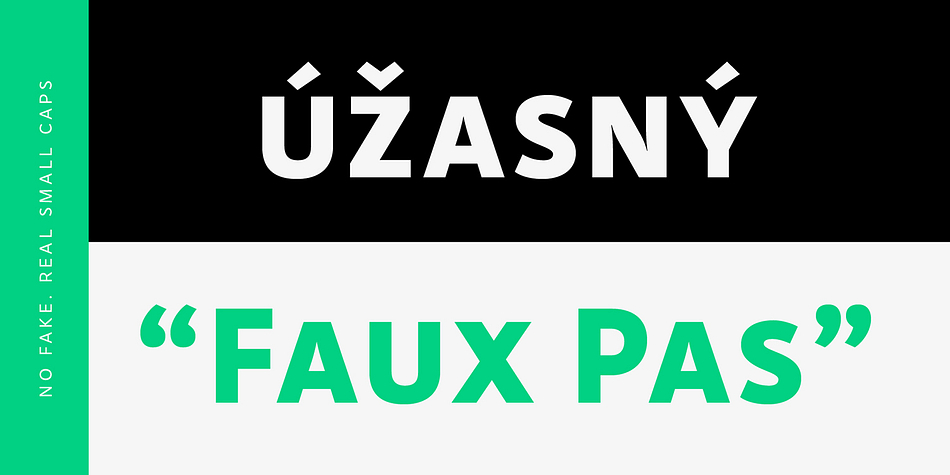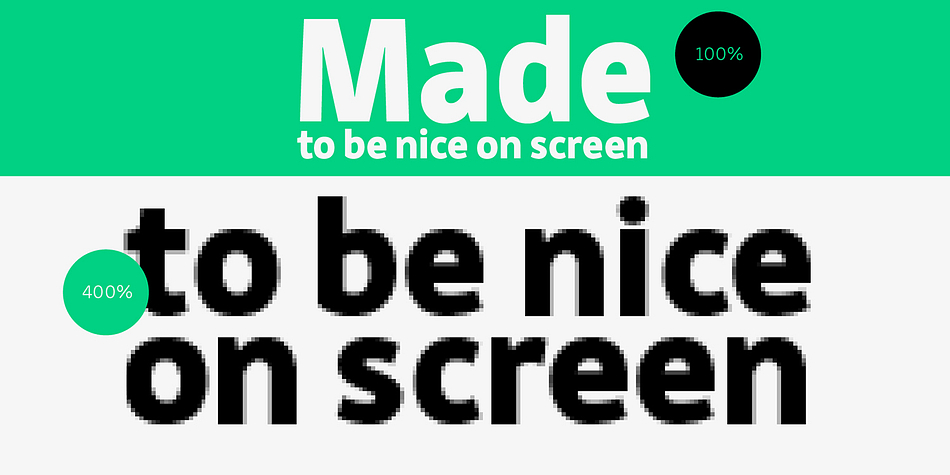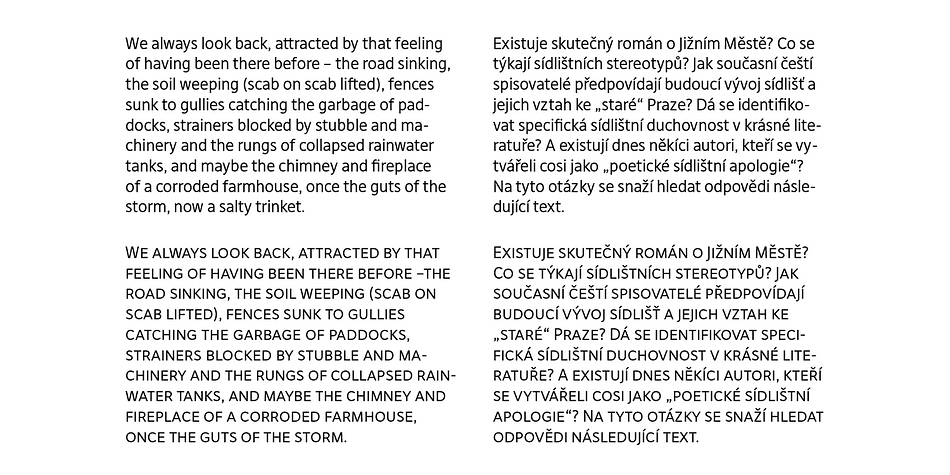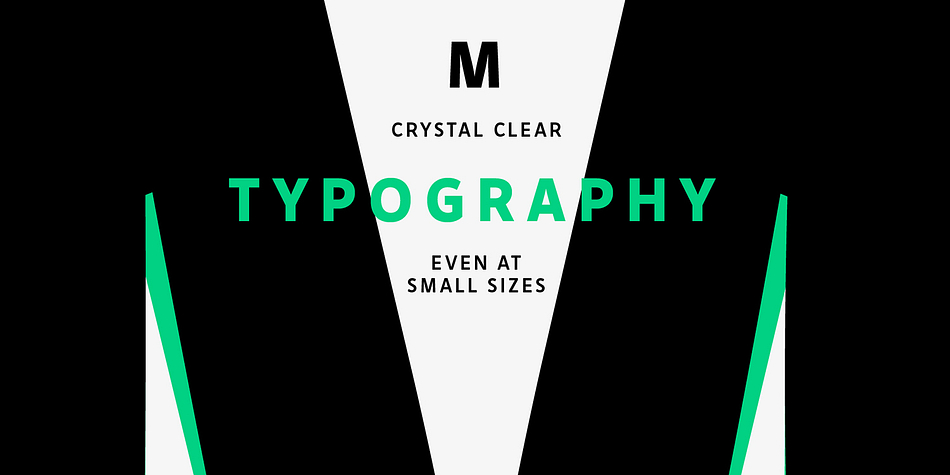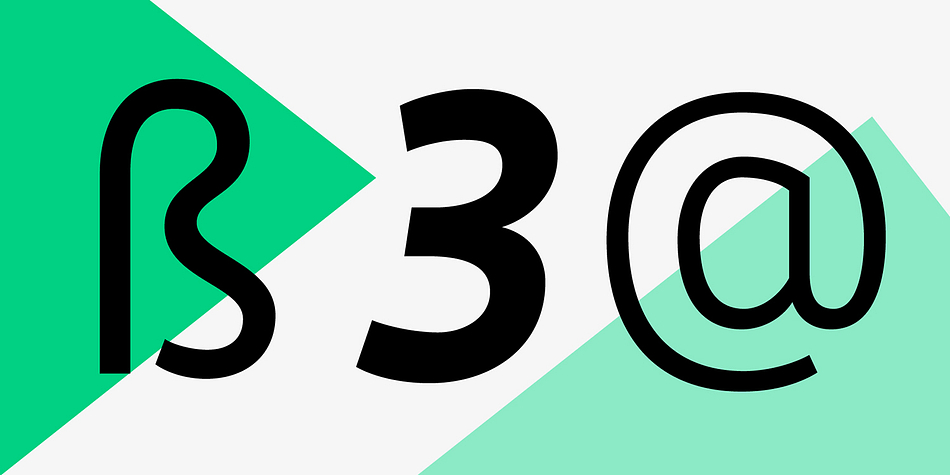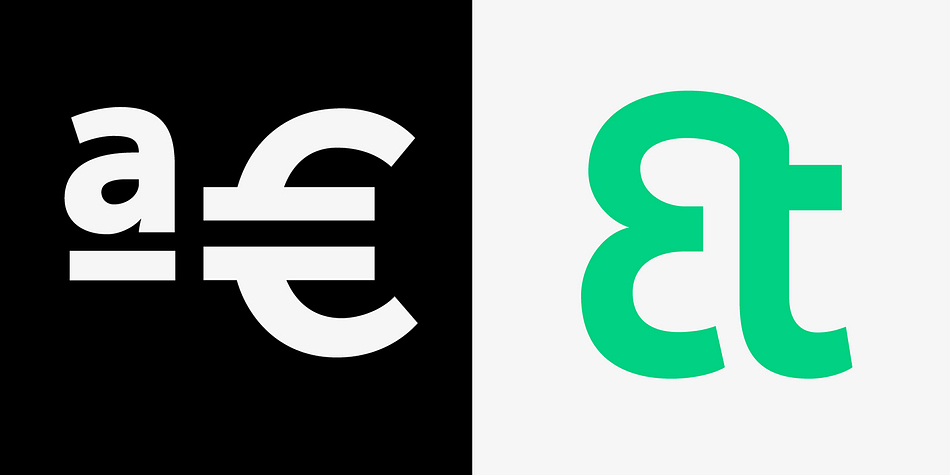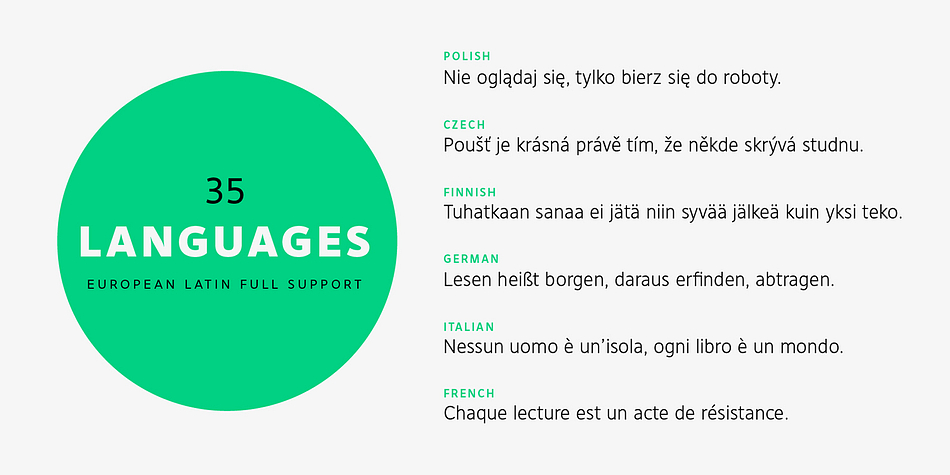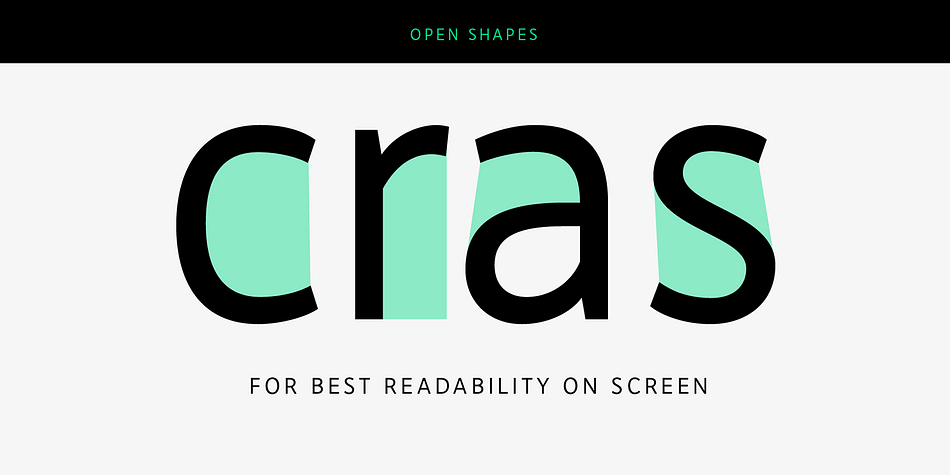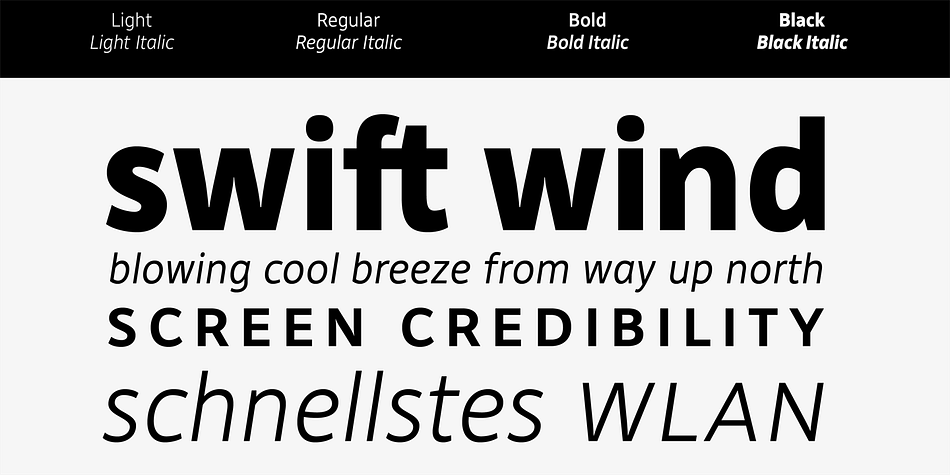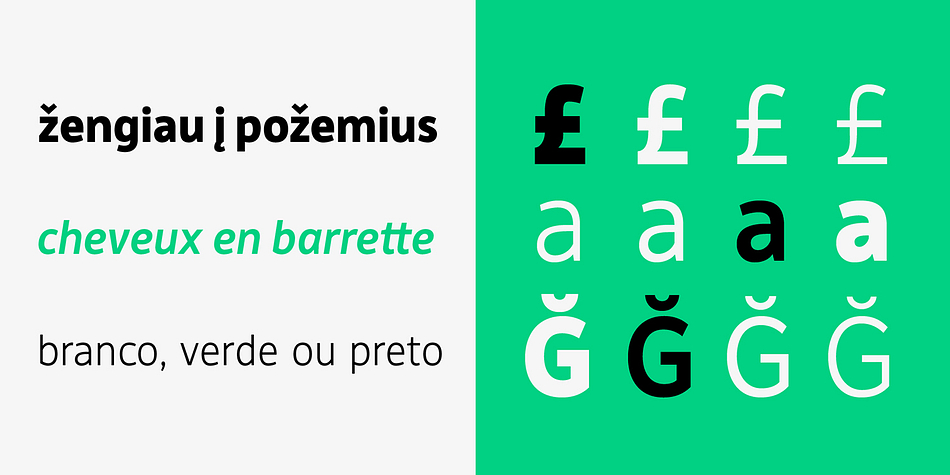
Designed by Elena Albertoni, Senza is a sans serif font family. This typeface has eight styles and was published by Blackmoon Foundry.
Senza is a contemporary, neutral, all-purpose sans serif family designed by Elena Albertoni. It was specially designed for the use on screen. With open shapes and large x-heights Senza guarantees high legibility for body text in small sizes. Senza ’s character-set covers all European languages written in Latin alphabet including real small caps, ligatures, proportional and tabular figures. Senza comes in four weights from Light to Black with matching italics.